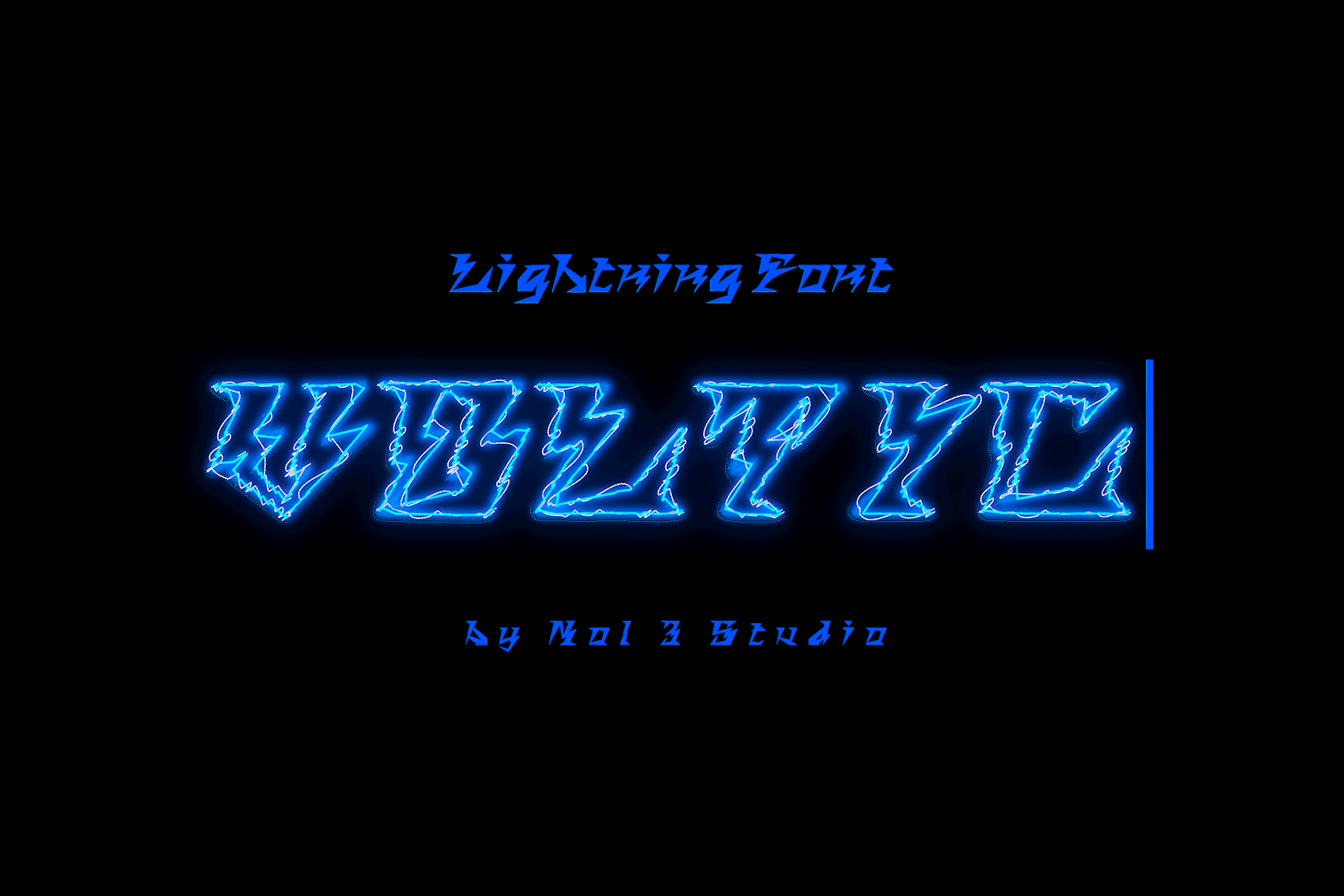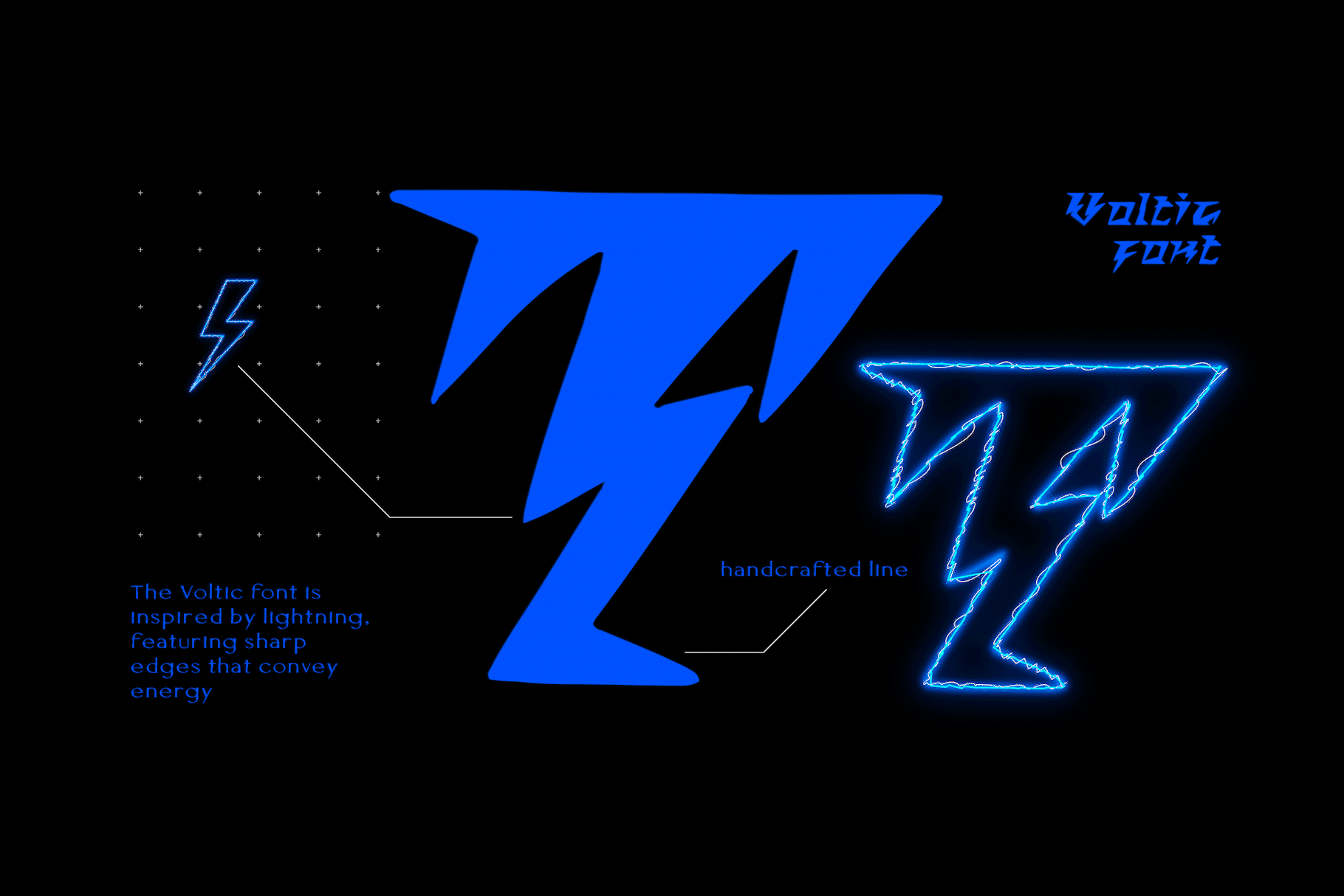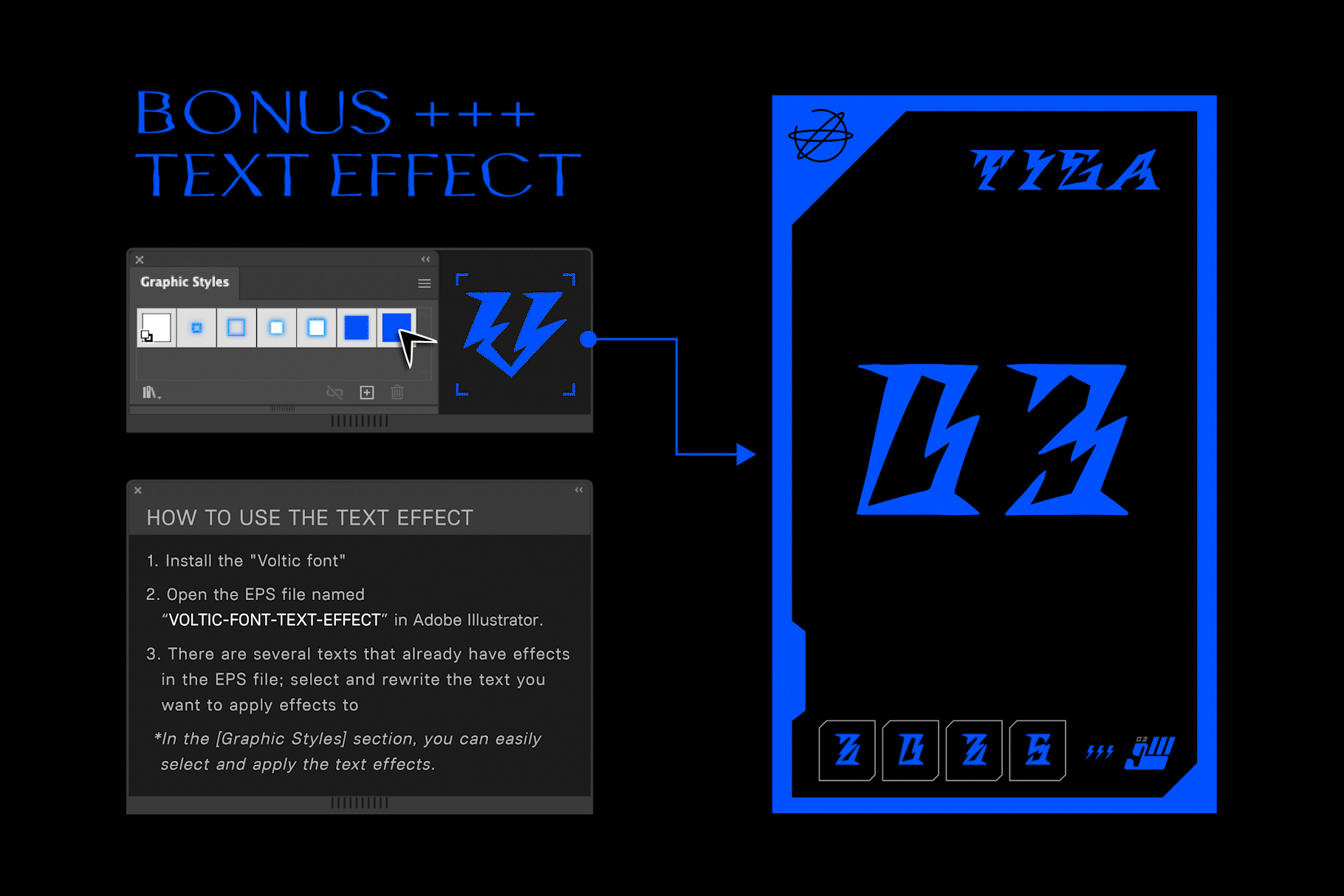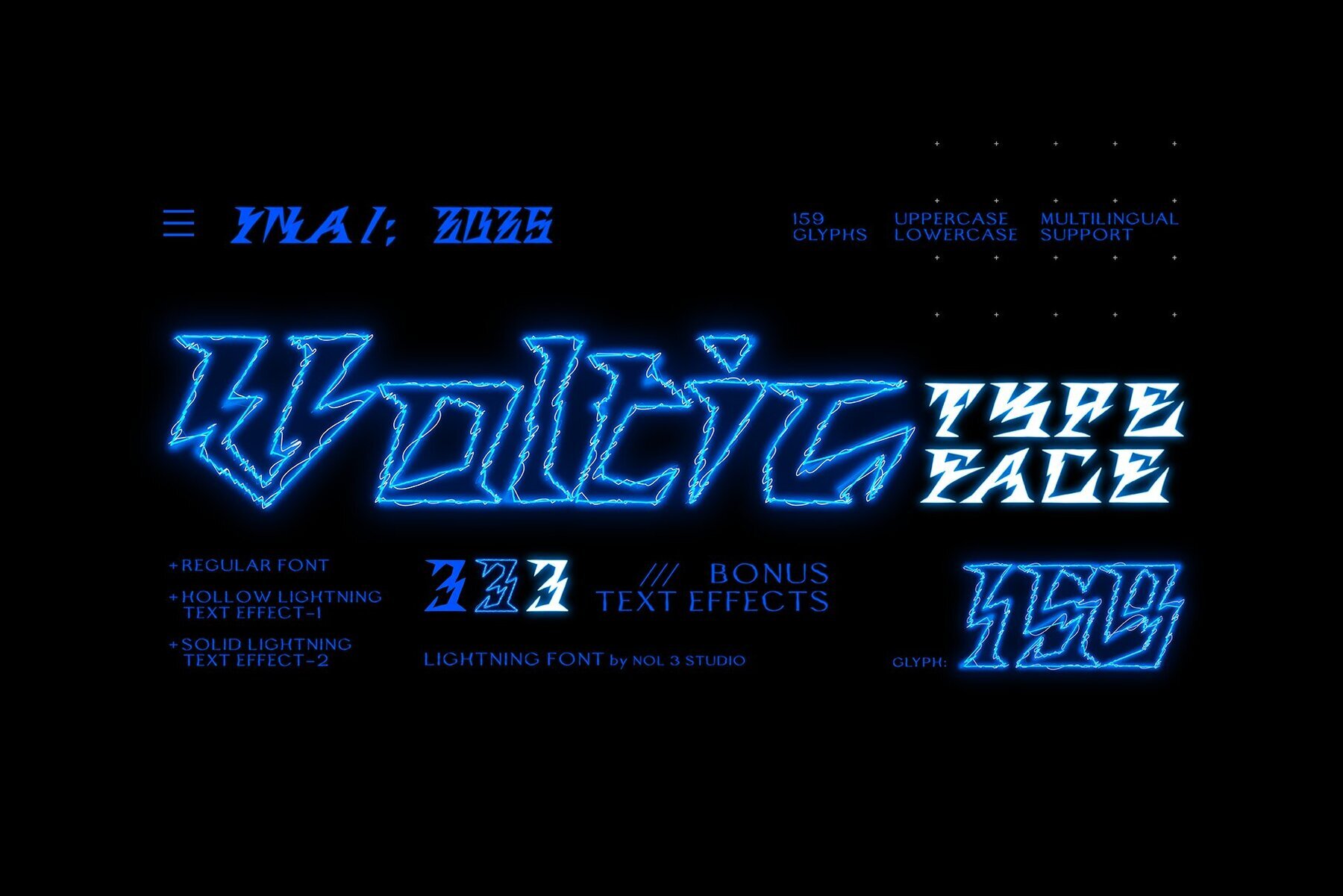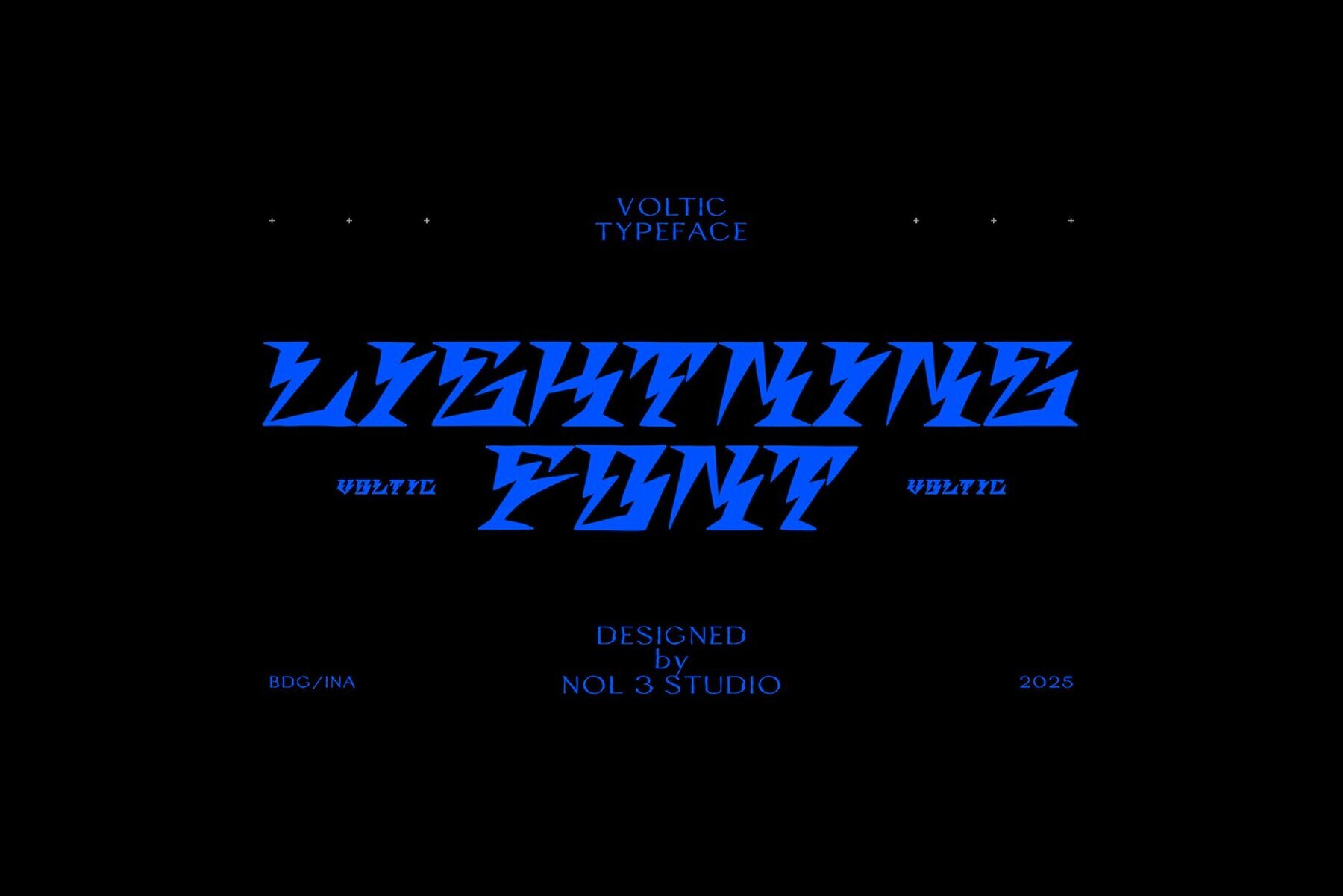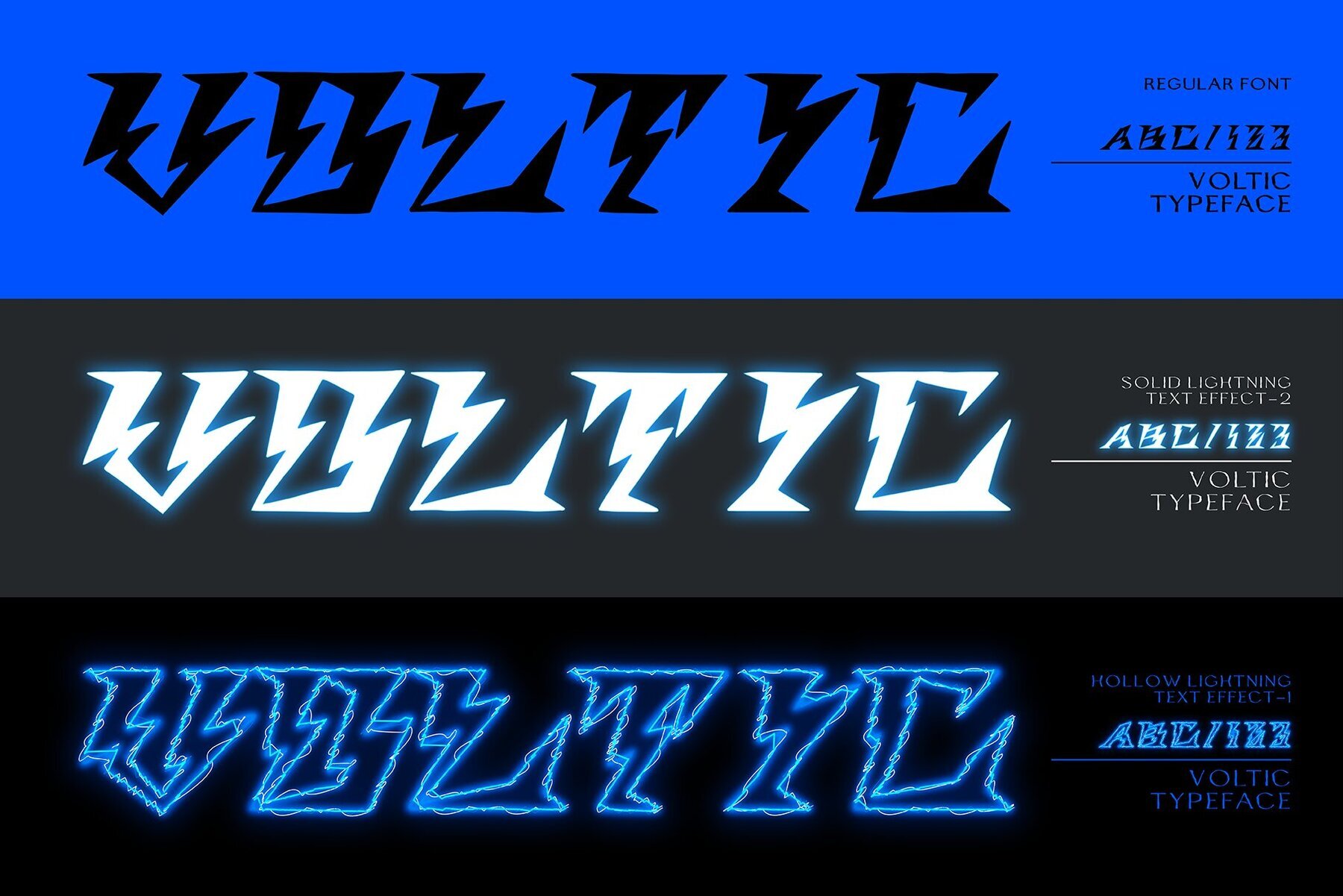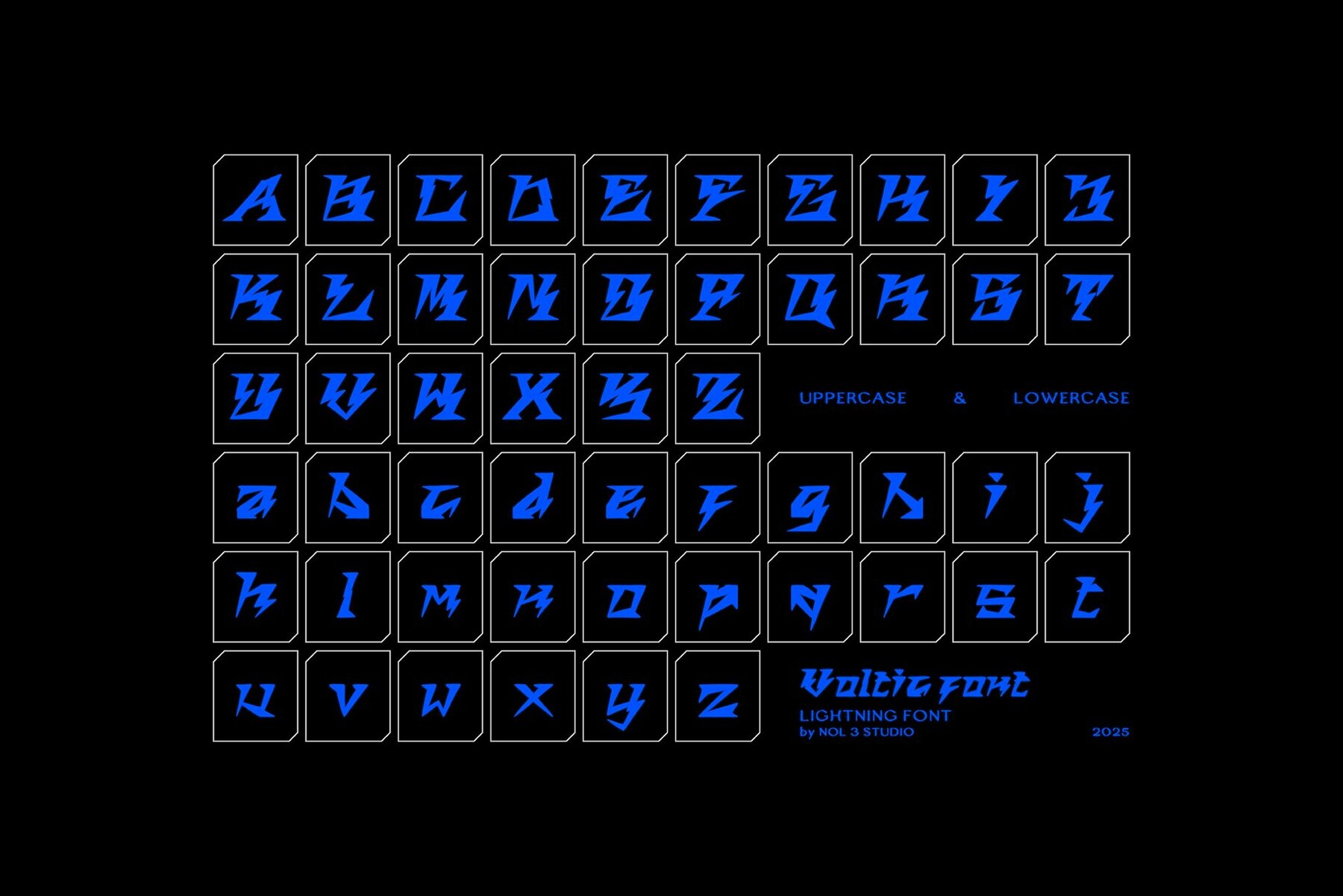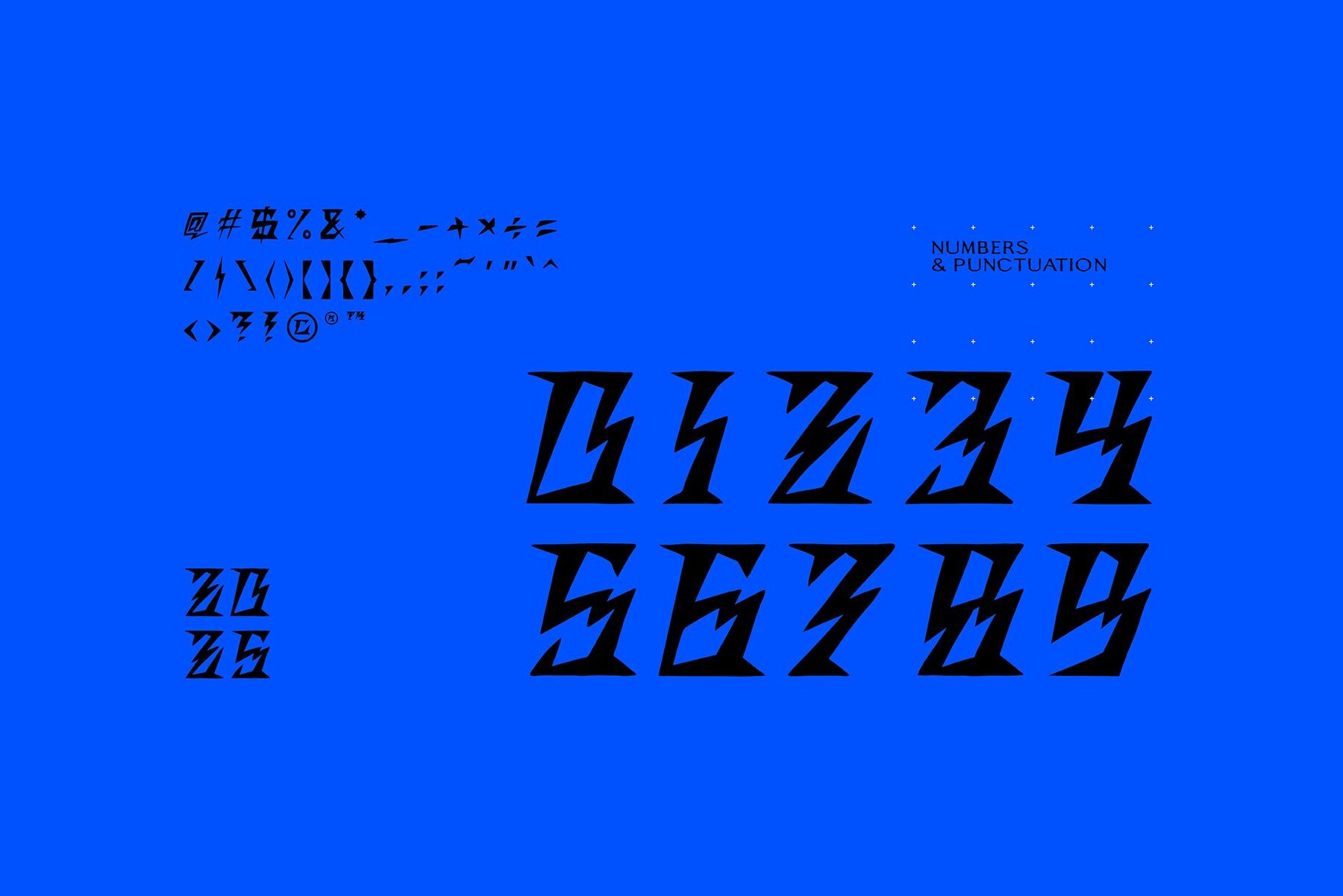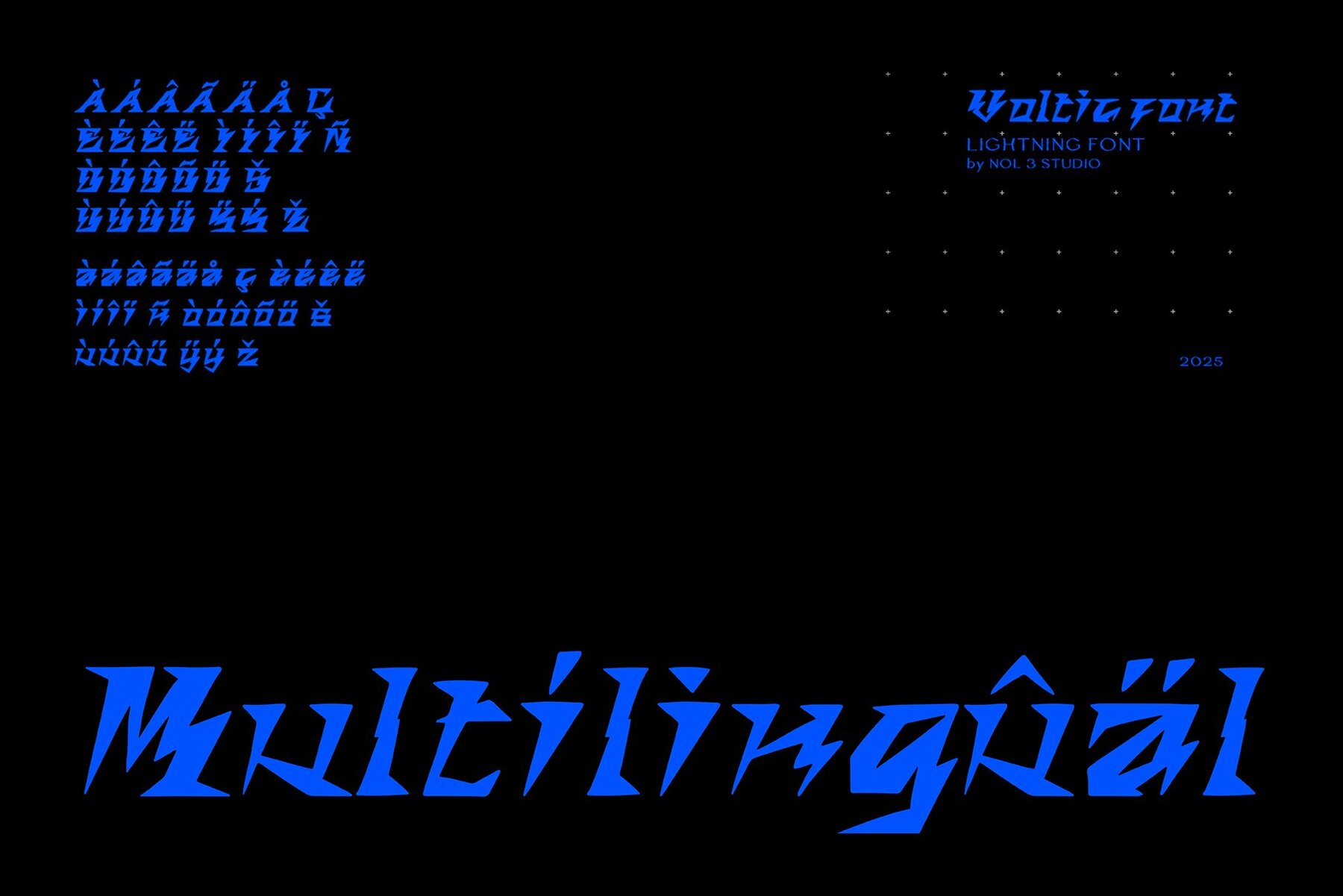
Voltic Font
Voltic is a dynamic font inspired by the electrifying presence of lightning. Its sharp edges and energetic design make it perfect for creating experimental and eye-catching designs. Whether you're crafting a bold headline or adding a touch of intensity to your graphics, Voltic provides a striking aesthetic that captures the raw power and energy reminiscent of thunderous skies.
This font includes 159 glyphs with a full range of uppercase and lowercase letters, numbers, and punctuation. It also offers multilingual support to cater to a diverse range of languages, ensuring versatility in your design projects. Additionally, Voltic comes with an editable bonus text effect, enabling designers to enhance their work effortlessly. Use Voltic to inject vitality and excitement into your creative projects.